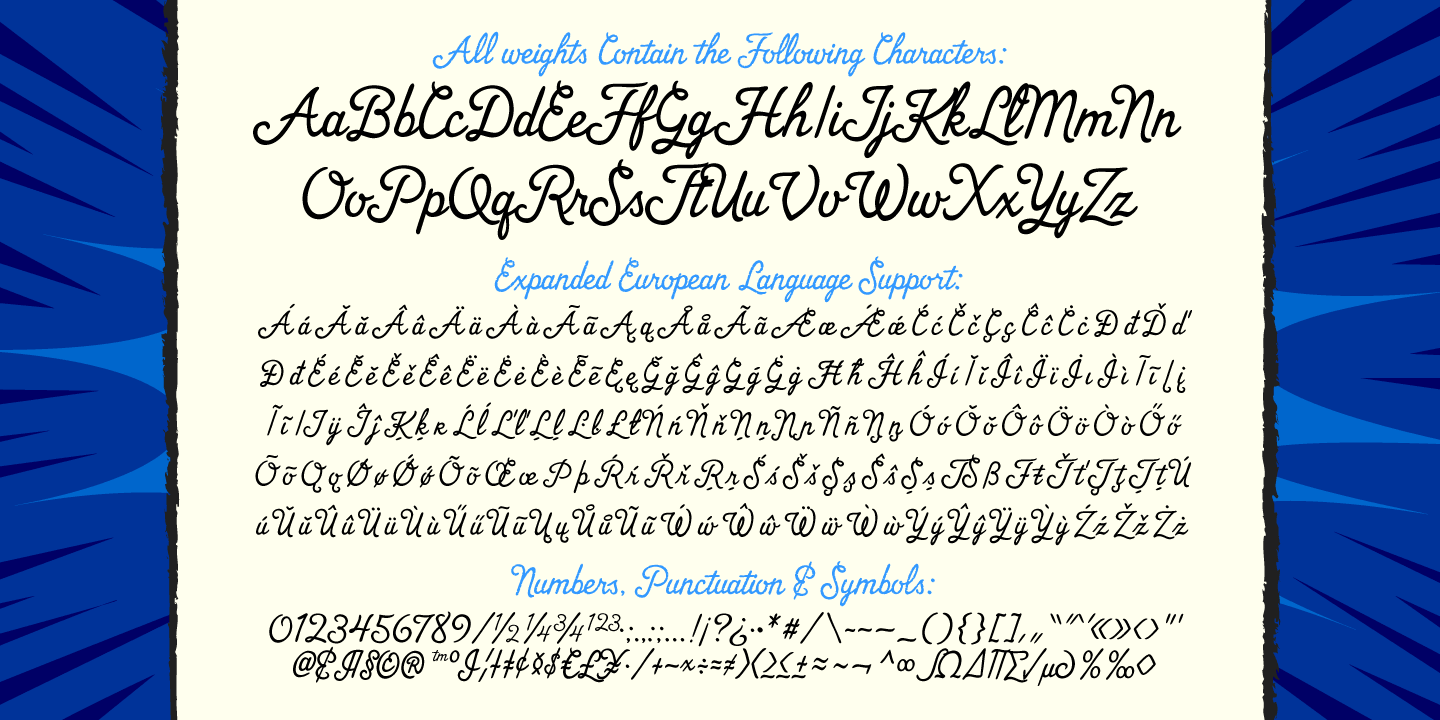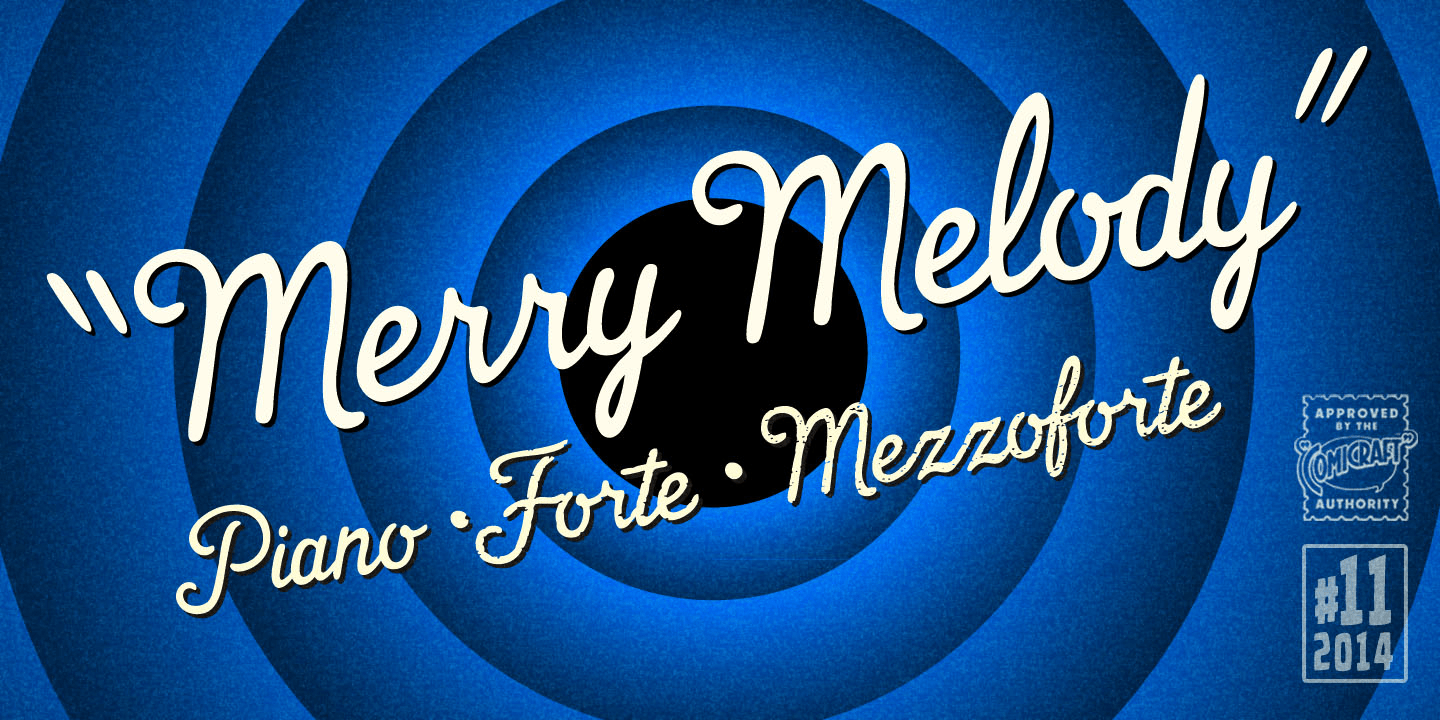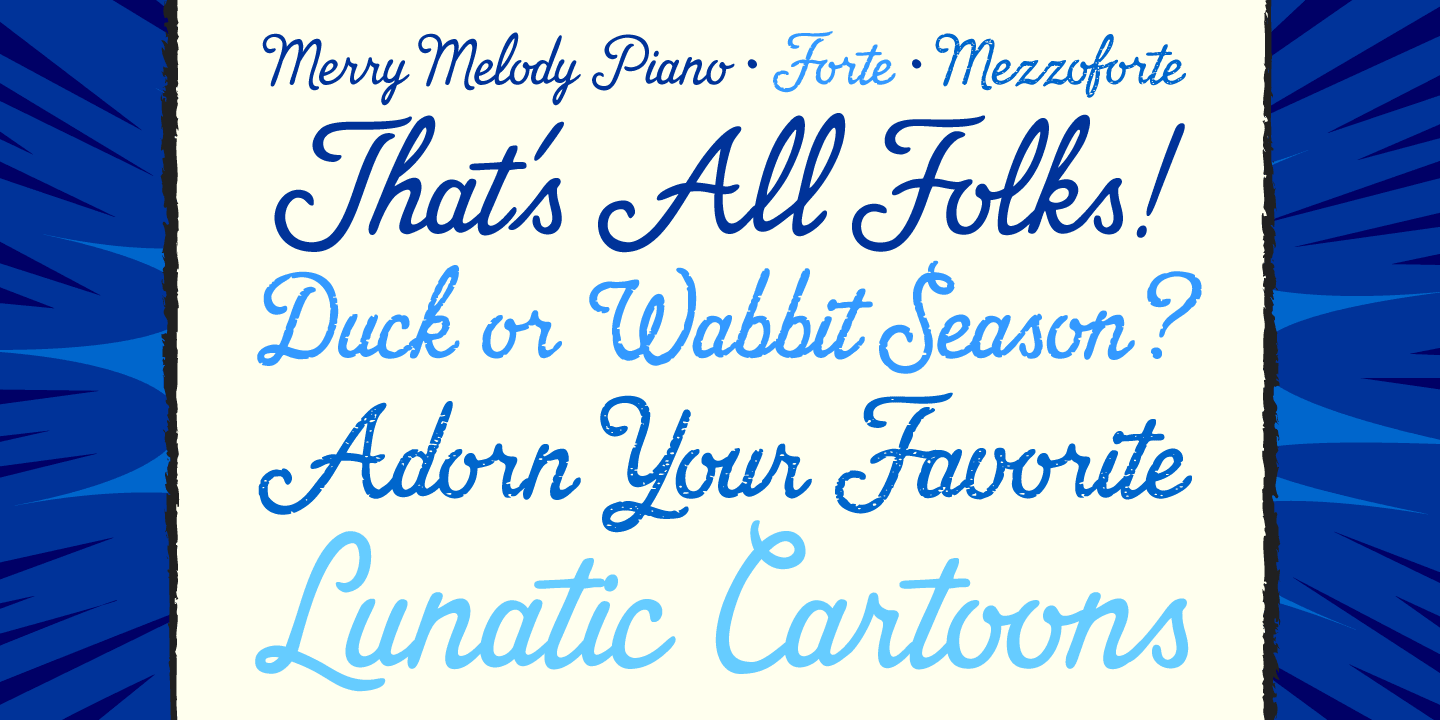
Merry Melody
About Merry Melody
Sufferin' Succotash, was that five minutes already?! Seemed to us like that lunatic cartoon went by faster than a roadrunner being pursued by a wily coyote or a hare brained bunny dodging short sighted hunters during wabbit season. Adorn your favorite…